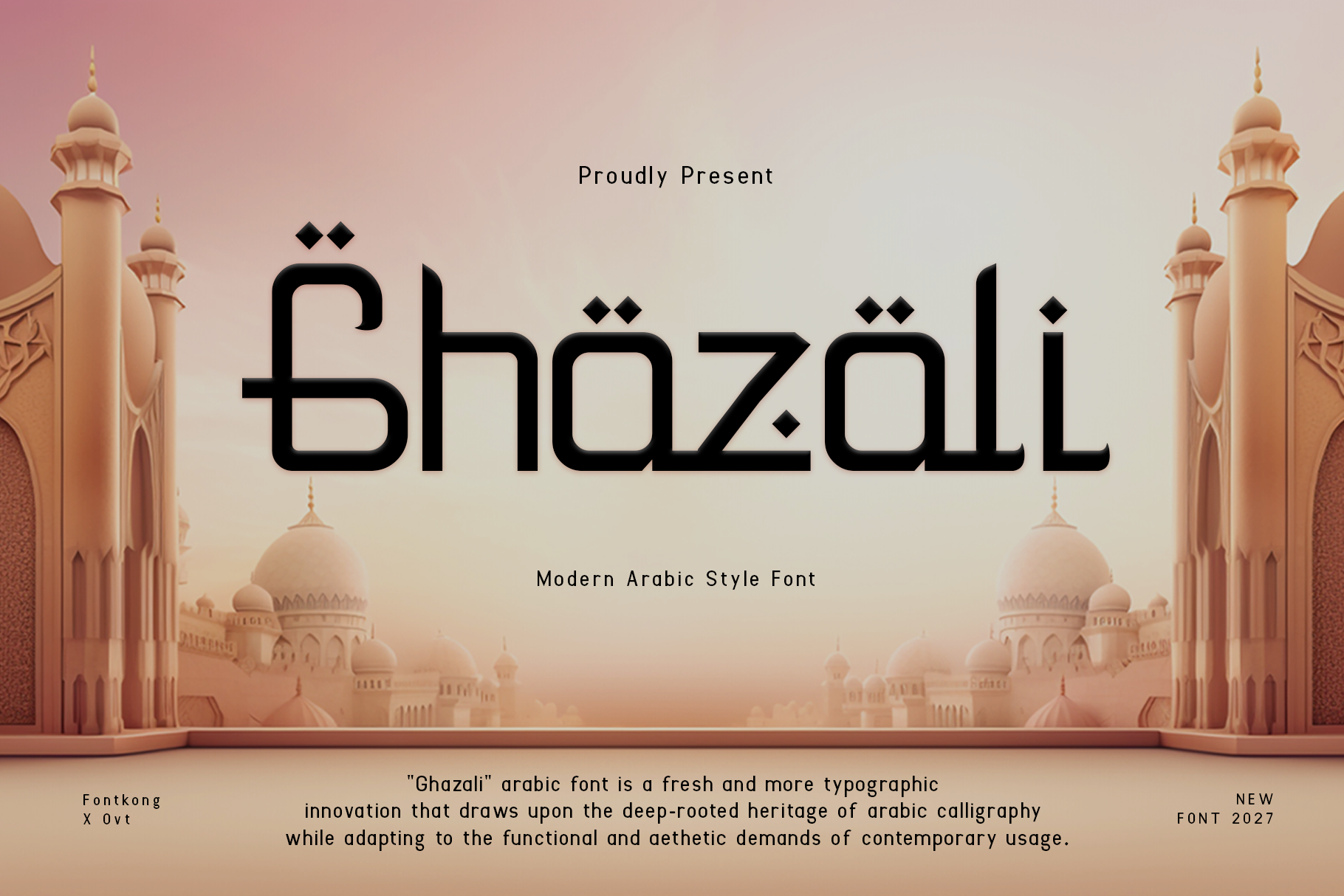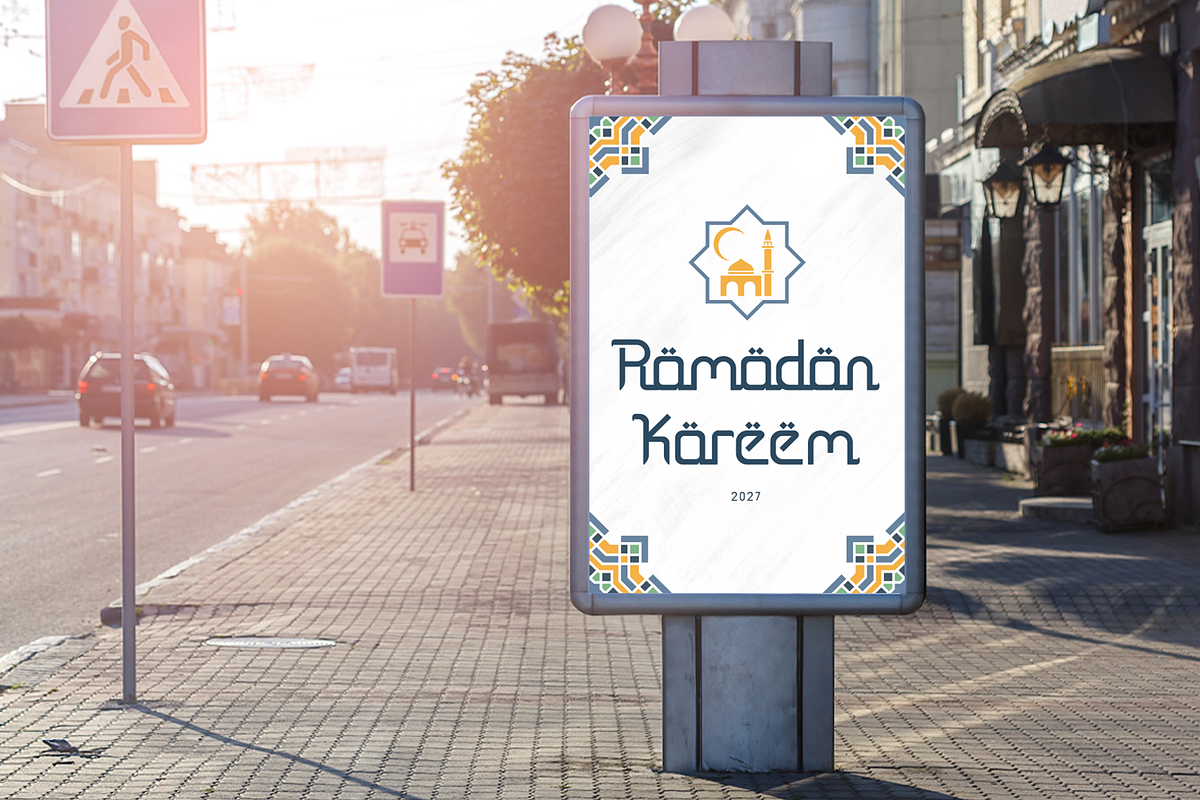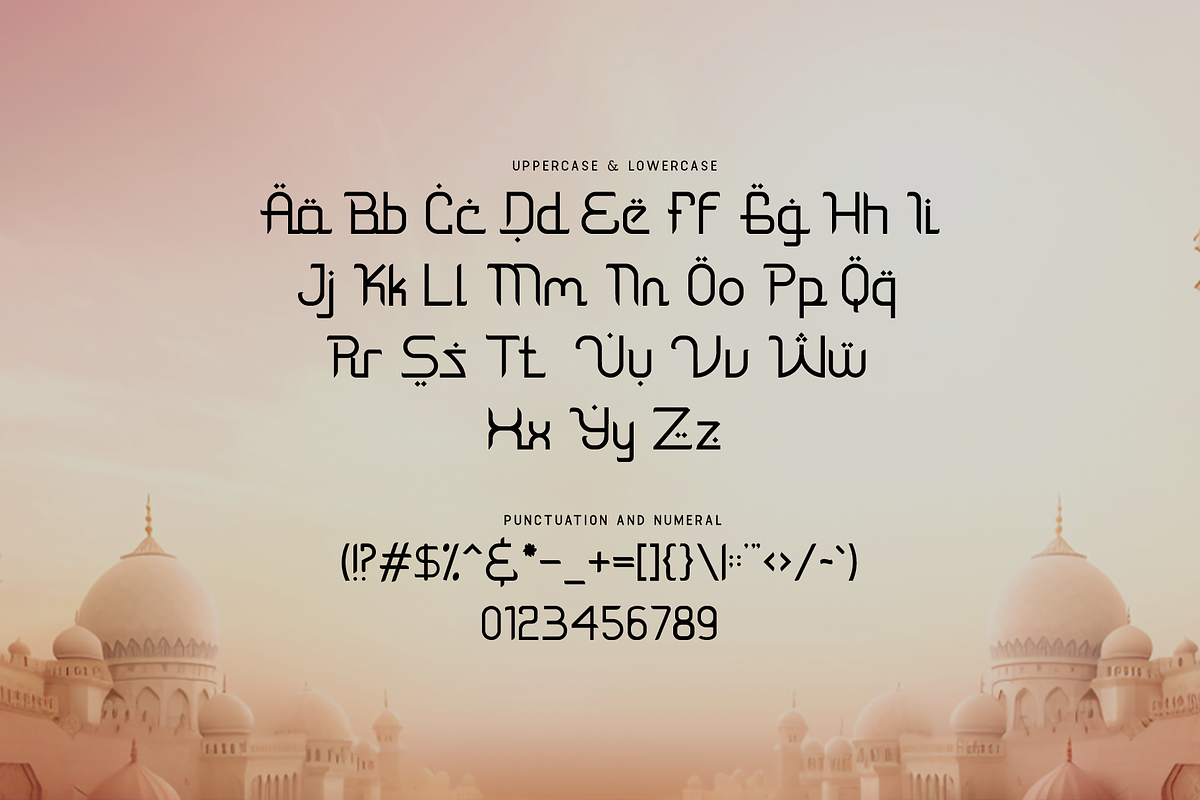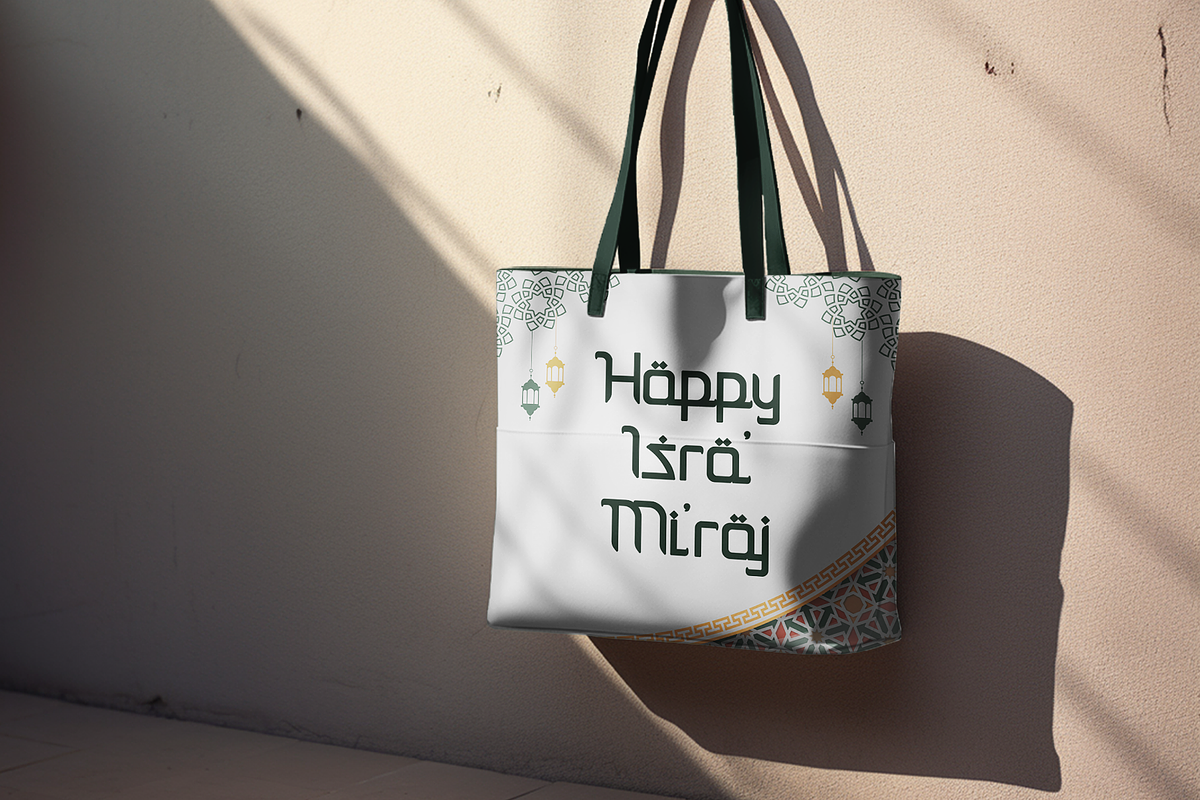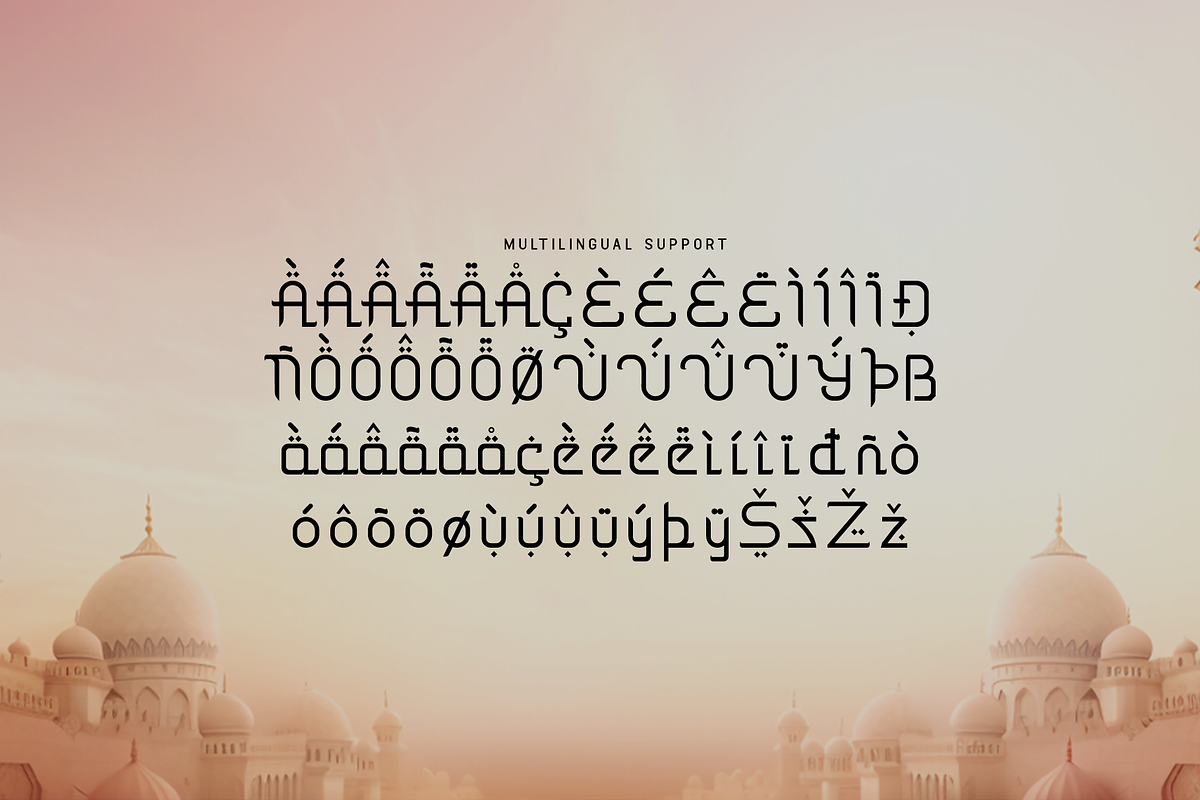
Ghazali - Modern Arabic Style Font
Ghazali is a modern Arabic-style font that blends cultural elegance with contemporary design. This versatile font is ideal for creating Islamic art, branding, logos, and eye-catching headlines. Whether for product packaging or creative typography projects, Ghazali adds a sophisticated and stylish Arabic touch to your designs.